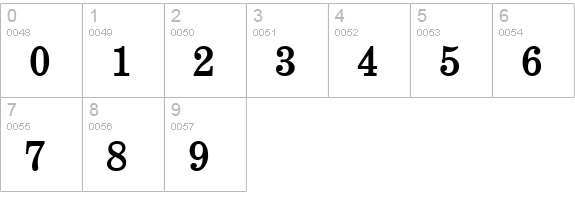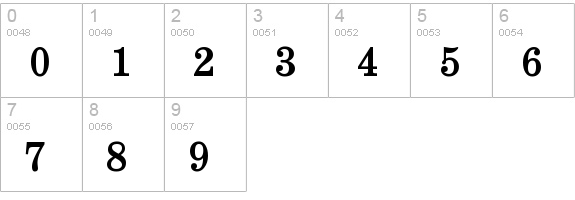
Annual Bold is a strong, high-contrast variant in the Annual typeface family \xE2\x80\x94 well suited to headlines, attention-grabbing titles, and strong calls-to-action.
Introducing Annual Bold font, a striking and versatile typeface designed to make a bold statement in your projects. The strong and confident letterforms of Annual Bold exude a sense of modernity and sophistication, making it perfect for a wide range of design applications. Whether you're working on branding, editorial design, posters, or web design, Annual Bold will bring a touch of bold elegance to your work. What's even better is that Annual Bold is available for free download at FontsMarket.com. With its sleek and professional appearance, this font is sure to elevate your designs and leave a lasting impression on your audience. Don't miss out on the opportunity to add this exceptional typeface to your collection today!